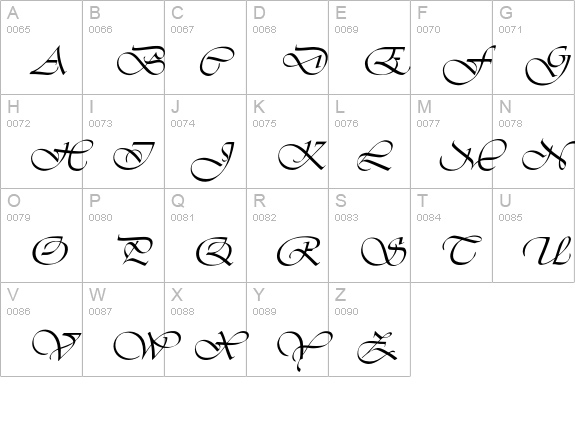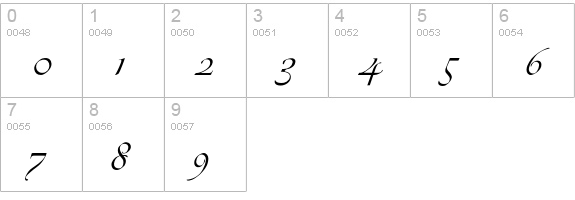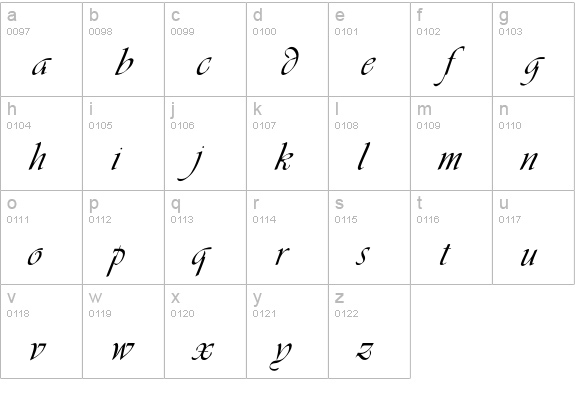
VivaldiICG font is a stunning and elegant typeface that exudes sophistication and charm. With its graceful and flowing letterforms, this font is perfect for adding a touch of elegance to any project. What sets VivaldiICG font apart is not only its beautiful design, but also the fact that it is available for free! Yes, you heard that right - this font can be freely downloaded at FontsMarket.com. Whether you're designing invitations, creating a logo, or working on a branding project, VivaldiICG font is sure to make a lasting impression. Its unique and stylish look will captivate your audience and elevate your designs to new heights. The versatility of VivaldiICG font is another reason to love it. It can be used for both formal and informal projects, making it a versatile choice for any design need. So why wait? Don't miss out on the opportunity to download this incredible font for free. Head over to FontsMarket.com and get your hands on VivaldiICG font today. Elevate your designs with this stunning and freely available typeface.